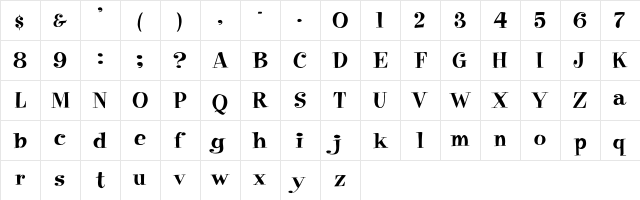
ELF Regular
Design Context for ELF Typeface
ELF offers clean, dependable letterforms without strong stylistic allegiance, making it a practical choice for designers who need flexibility.